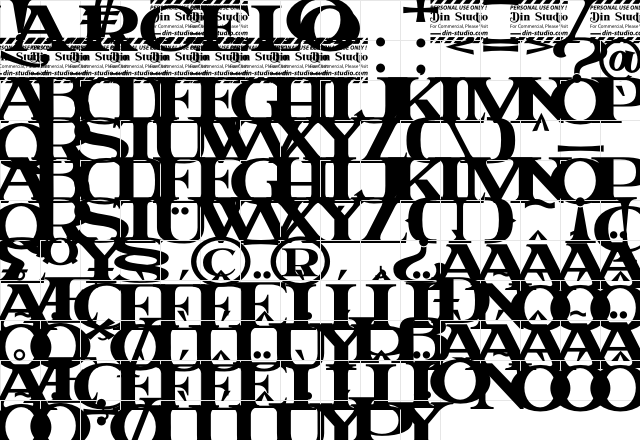
Marcelo Personal Use Regular
| Designer | Donis Miftahudin |
Design Context for Marcelo Personal Use Typeface
Marcelo Personal Use takes a measured approach to typography — its balanced proportions and neutral character make it a reliable workhorse for both digital and print work.